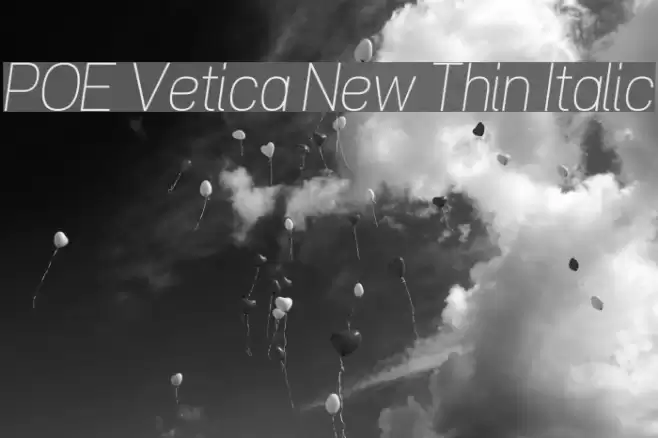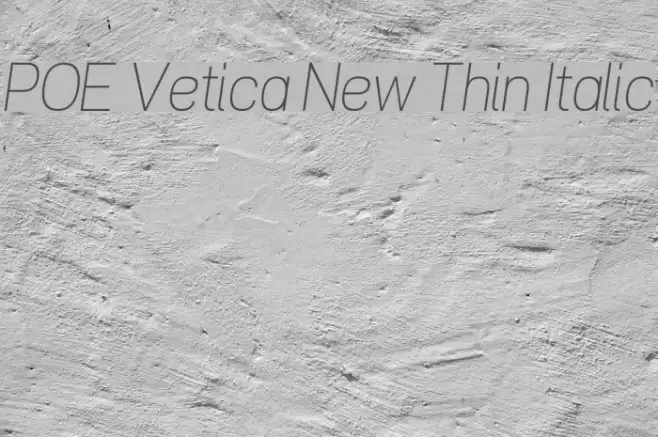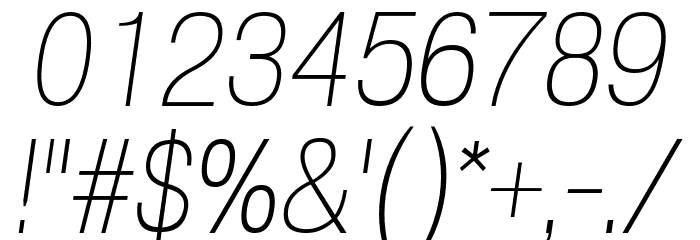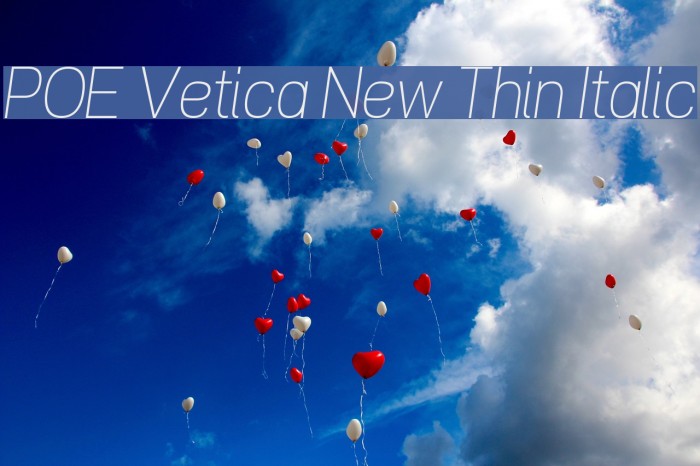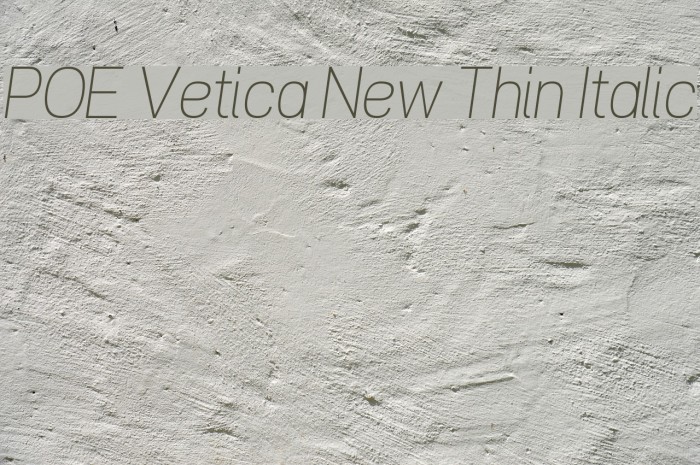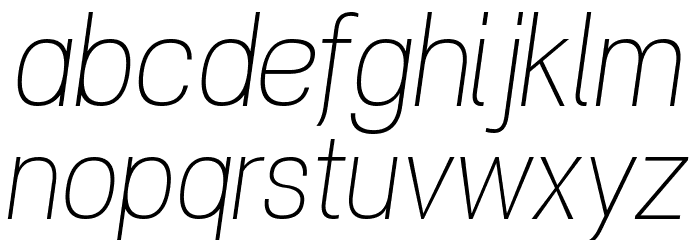
POE Vetica New Thin Italic
This font features a sleek and modern design with a thin and elegant appearance. The characters are slightly italicized, giving them a dynamic and forward-leaning posture. The strokes are consistently thin, contributing to a light and airy feel. The uppercase and lowercase letters maintain a uniform style, with smooth curves and clean lines. The numerals are clear and easy to read, matching the overall aesthetic of the font. Special characters are well-integrated, maintaining the same thin and italicized style. This font is ideal for projects that require a contemporary and sophisticated look.
A thin, italicized font with a modern and elegant style.
- Proposed Projects: Ideal for fashion magazines, modern branding, elegant invitations, and minimalist web design.
- Weight: Light
- Use Case: Headlines, Logos, Editorial design